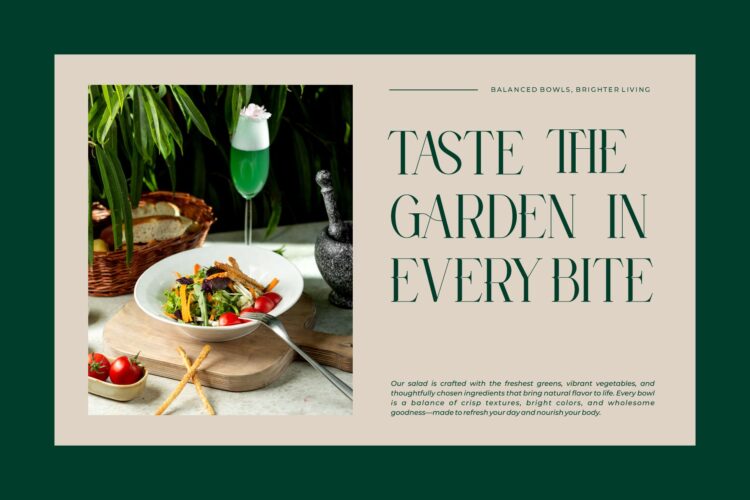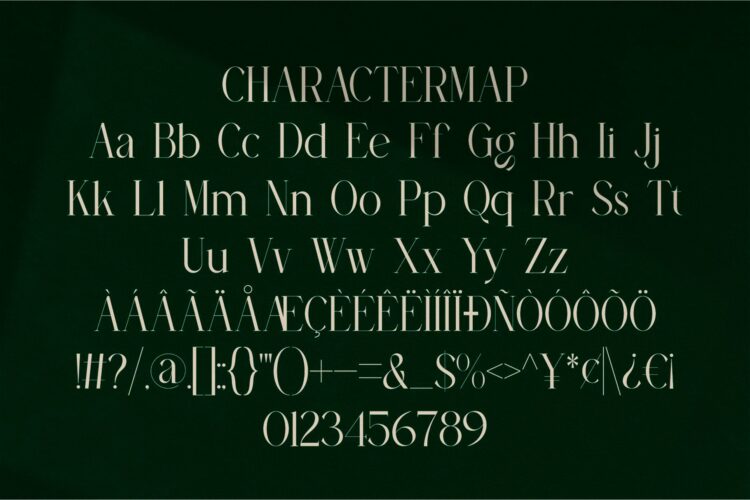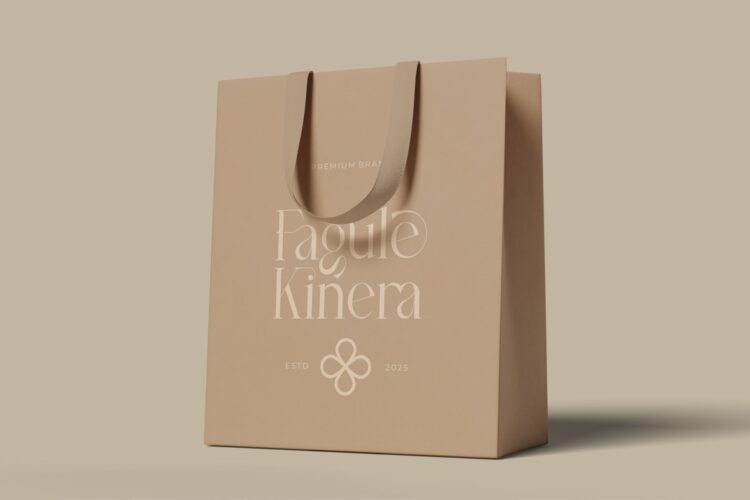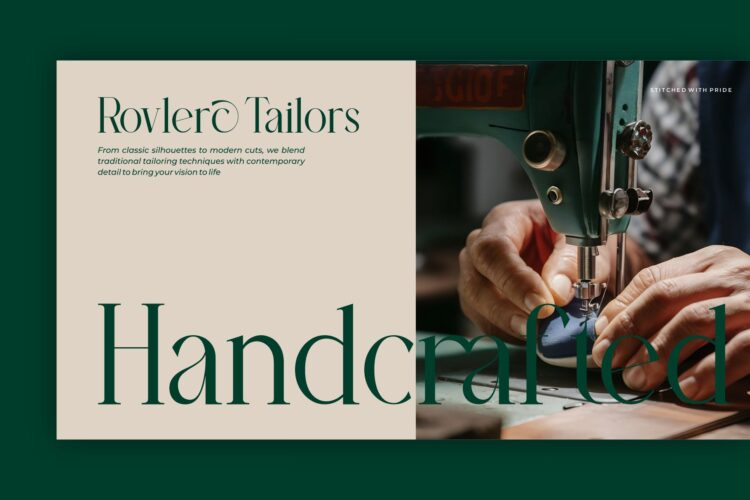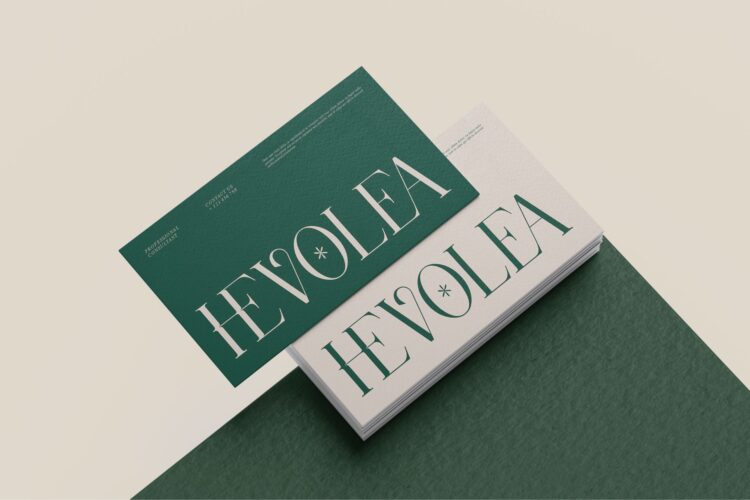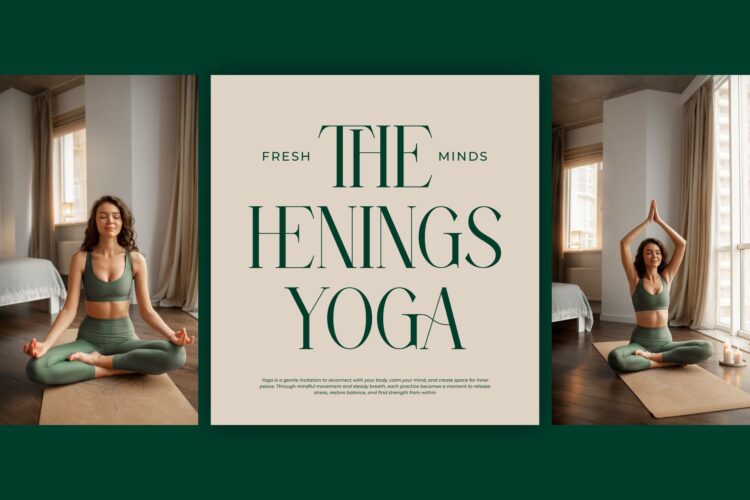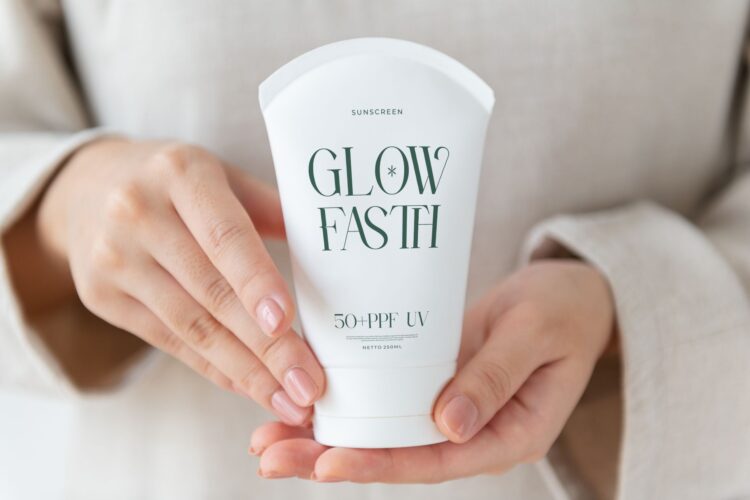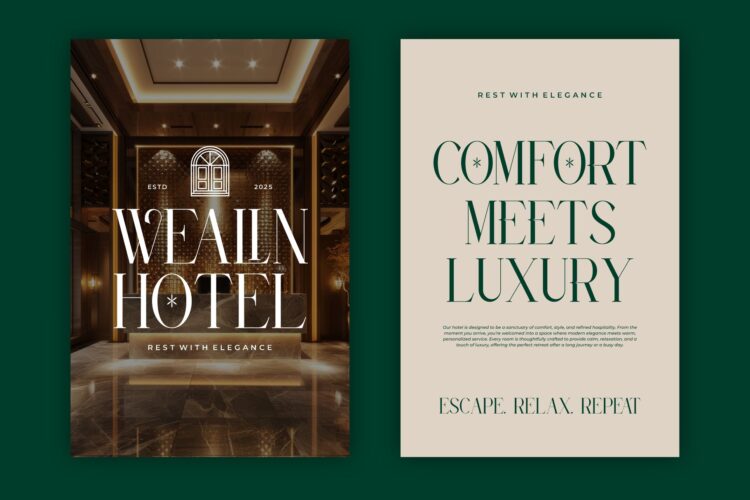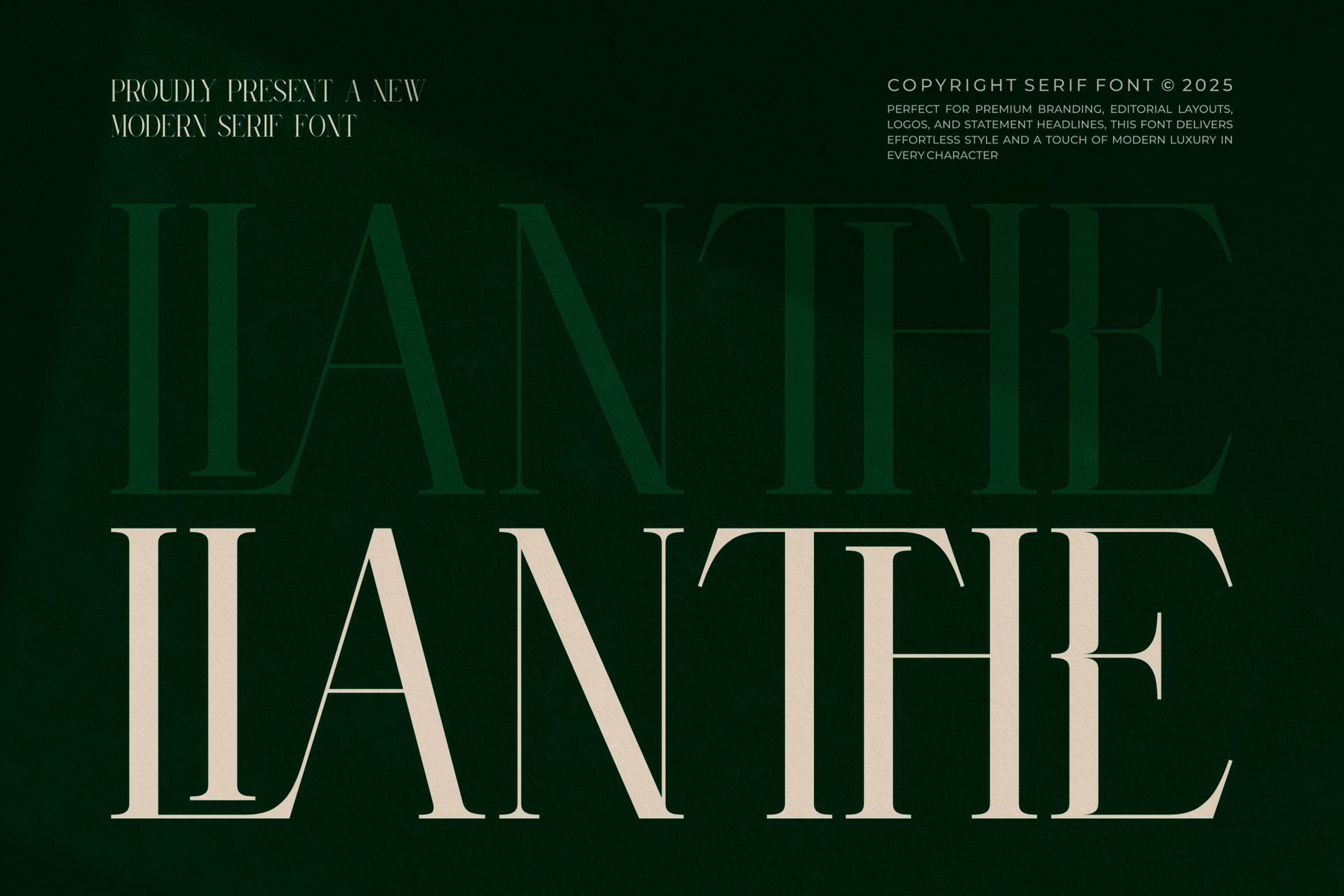
Lianthe Serif is a elegant and classy font type for all branding and logo designs. This elegant and classy Serif font has a beautiful character. This font is suitable for invitation card designs, cool logos, movie titles, movie names, business cards, book titles, brand names, and various other designs. Kasero Stencil Serif is a smooth serif font that exudes sophistication and the moment. Its stylish ligatures make this font a perfect partner for any project.